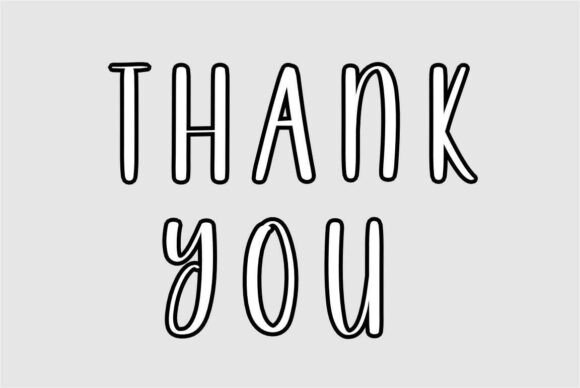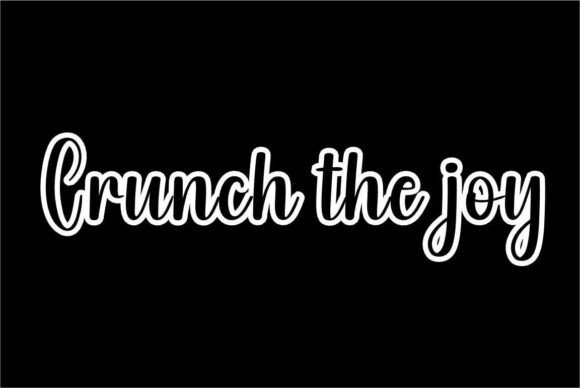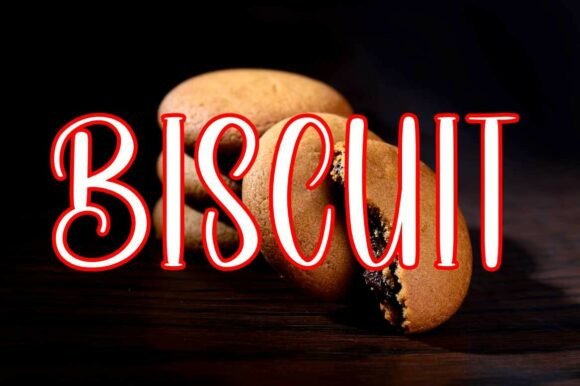
Biscuit Font: The Perfect Playful Handwritten Font for Your Designs
Are you looking for a font that can add a touch of warmth and playfulness to your designs? Look no further than the Biscuit Font! This charming handwritten font is inspired by sweet moments and cozy vibes, making it perfect for a wide range of design projects. In this article, we’ll explore the features and benefits of the Biscuit Font, and how it can elevate your designs to the next level.
What is Biscuit Font?
BISCUIT is a playful and charming handwritten font that is designed to bring a warm, fun, and casual feel to your designs. With its natural strokes and friendly letterforms, this font is perfect for creating designs that feel homemade and authentic. The Biscuit Font is inspired by the joy of sweet treats and cozy moments, making it an ideal choice for food branding, bakery logos, biscuit and snack packaging, kids’ designs, quotes, social media posts, labels, and creative projects.
Features of Biscuit Font
The Biscuit Font comes with a range of features that make it a versatile and user-friendly font. Some of its key features include:
- Playful and charming design: The Biscuit Font has a unique and playful design that is sure to capture the attention of your audience.
- Natural strokes and friendly letterforms: The font’s natural strokes and friendly letterforms give it a warm and approachable feel.
- Works beautifully in both digital and print projects: The Biscuit Font is designed to work well in both digital and print projects, making it a versatile choice for designers.
Benefits of Using Biscuit Font
The Biscuit Font offers a range of benefits for designers and crafters. Some of the key benefits include:
- Adds a joyful and approachable personality to your designs: The Biscuit Font’s playful and charming design adds a joyful and approachable personality to your designs.
- Perfect for food branding and bakery logos: The font’s sweet and cozy vibe makes it perfect for food branding and bakery logos.
- Great for kids’ designs and creative projects: The Biscuit Font’s playful design makes it a great choice for kids’ designs and creative projects.
Who is Biscuit Font for?
The Biscuit Font is designed for creators who want a handwritten font that feels cheerful, tasty, and full of character. This font is perfect for:
- Graphic designers: Graphic designers who want to add a playful and charming touch to their designs.
- Crafters: Crafters who want to create handmade designs that feel homemade and authentic.
- Food bloggers and influencers: Food bloggers and influencers who want to add a sweet and cozy vibe to their branding and social media posts.
- Small business owners: Small business owners who want to create a unique and playful brand identity.
How to Use Biscuit Font
Using the Biscuit Font is easy! Here are a few tips to get you started:
- Use it for food branding and bakery logos: The Biscuit Font is perfect for creating sweet and inviting branding for food businesses.
- Add it to your kids’ designs and creative projects: The font’s playful design makes it a great choice for kids’ designs and creative projects.
- Use it for social media posts and labels: The Biscuit Font is a great choice for creating playful and eye-catching social media posts and labels.
The Biscuit Font is a playful and charming handwritten font that is perfect for adding a touch of warmth and playfulness to your designs. With its natural strokes and friendly letterforms, this font brings a warm, fun, and casual feel to your designs. Whether you’re a graphic designer, crafter, food blogger, or small business owner, the Biscuit Font is a versatile and user-friendly choice that is sure to elevate your designs to the next level.